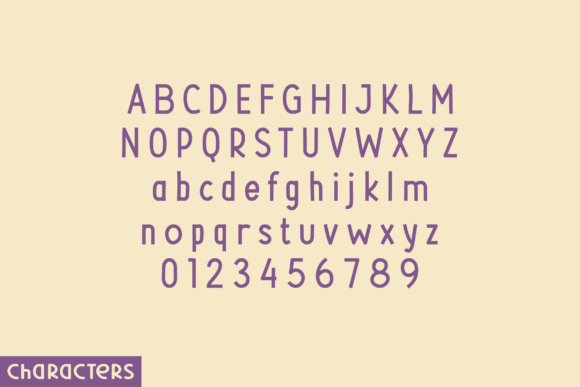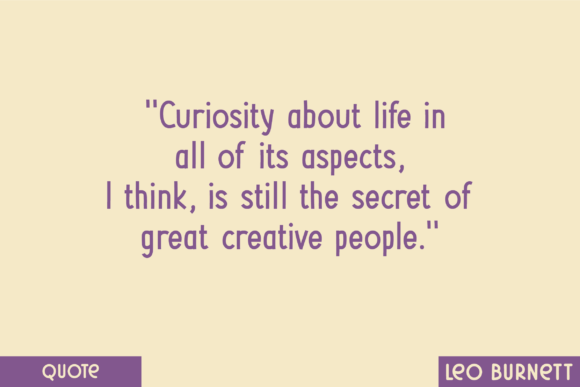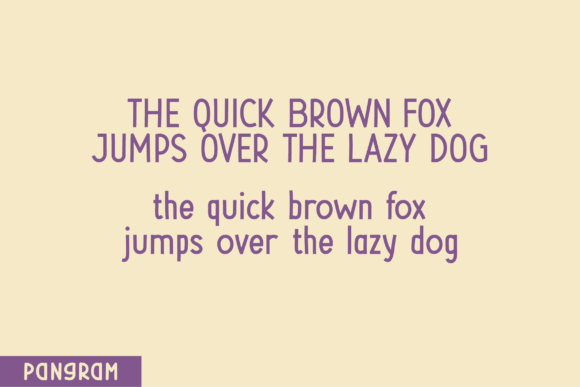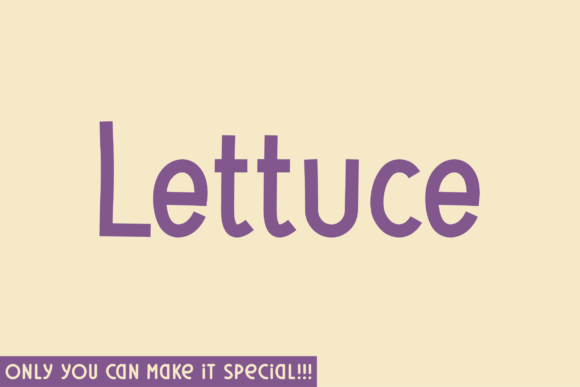
Introduction to Lettuce Font
Lettuce is a natural sans serif font created without changing a single node in each character’s indentation – this makes this font very interesting and unique.
Perfect for quotes, notes, tees, and any product design .
Lettuce Font offers exceptional quality and versatility, making it a valuable addition to your design toolkit. Whether you’re creating for personal projects or commercial use, Lettuce Font delivers professional results.